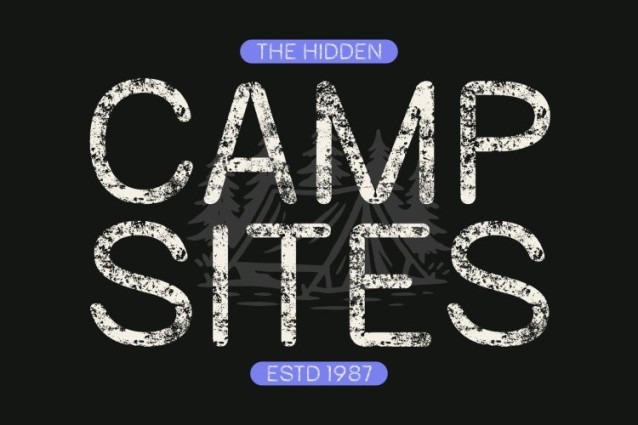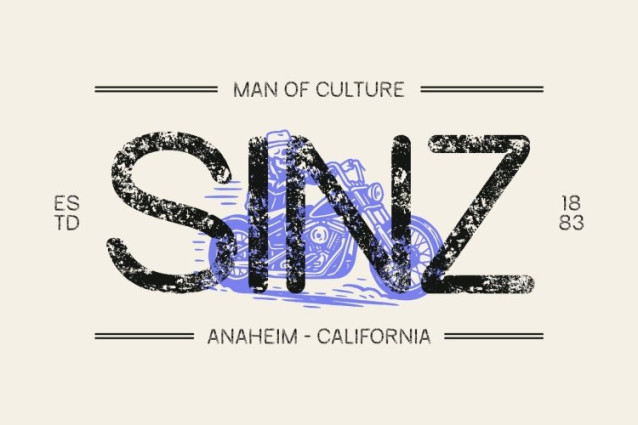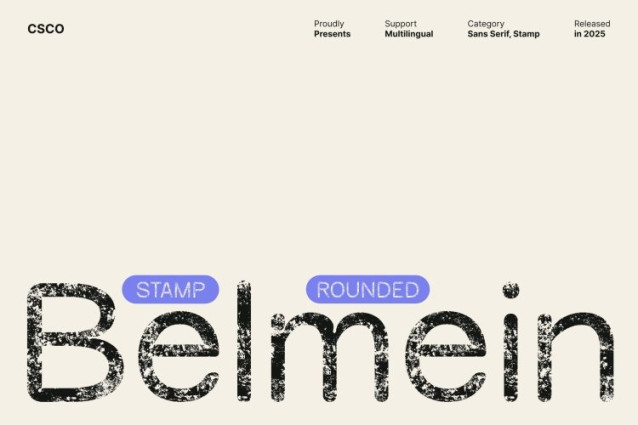
Belmein Rounded Stamp Font
Belmein Rounded Stamp Font This font blends professional structure with expressive personality, creating a display sans serif that feels both modern and authentically handcrafted. Its precise shapes, softened corners, and refined grotesk proportions give the font a polished, contemporary appearance while the added stamp texture injects warmth, grit, and nostalgic charm.
Grotesk Structure Enhanced with Rounded Forms and Inktrap Details
Built on a clean grotesk foundation, offers clarity, balance, and strong visual impact. Rounded forms soften the tone, making the font approachable and stylish. Inktrap details add depth and craftsmanship, giving each character a distinctive, editorial look. These elements work together to produce a structured yet expressive design ideal for bold display use.
Stamp Texture for Raw, Artistic, and Vintage Appeal
The unique stamp effect adds texture, irregularity, and a handcrafted feel to every letter. This creates an organic and weathered appearance reminiscent of old print methods, posters, and traditional signage. The texture enhances the font’s individuality, turning even simple text into eye-catching, artistic typography.
Perfect for Branding, Posters, Editorials, and Creative Displays
This font excels in projects that require a blend of modern professionalism and artistic personality. Its balance of precise grotesk shapes, inktrap accents, and vintage stamp texture makes it an excellent choice for branding, posters, editorial layouts, advertising, packaging, and more.